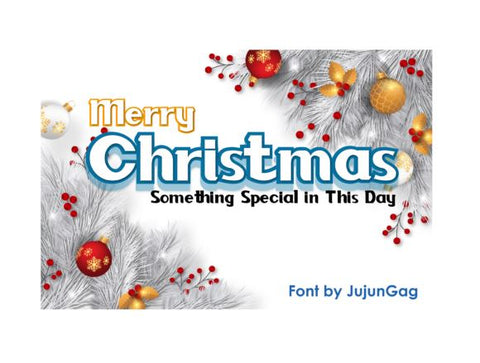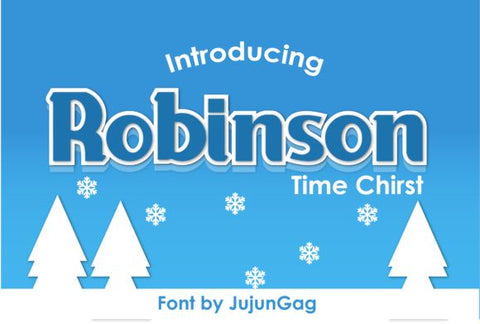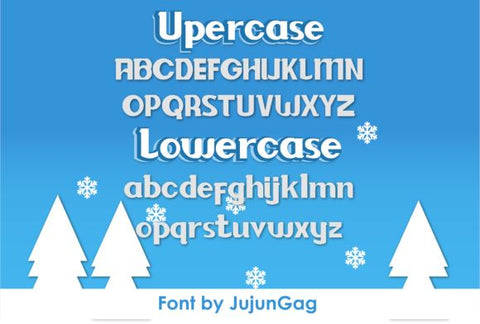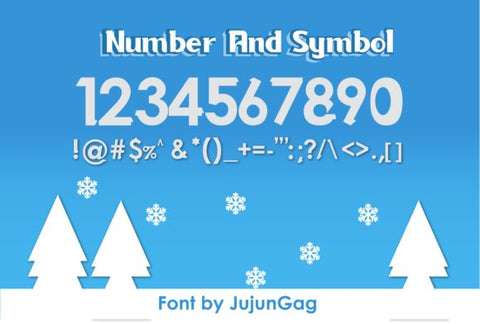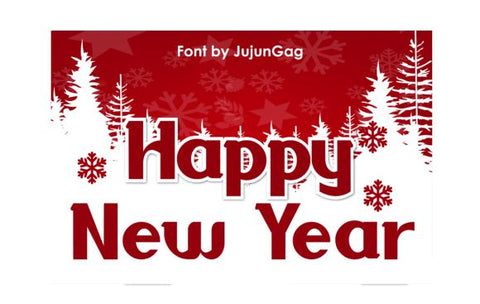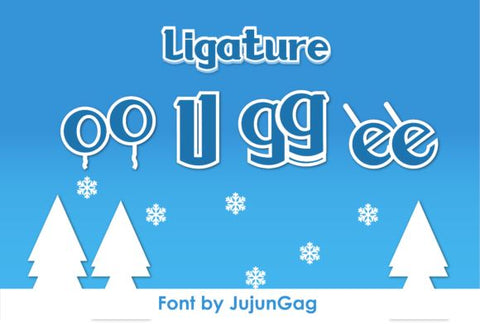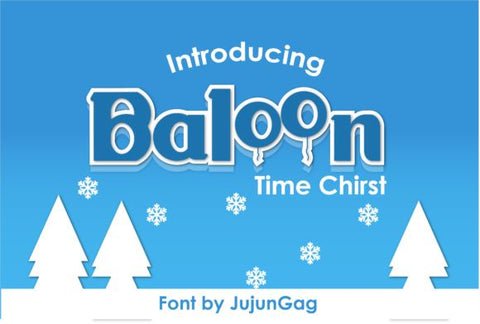
Baloon Display Font
Baloon Display Font – Baloon Display Font is a design font with a natural brush style that can enhance the quality of your designs.
Baloon Display Font– This Font is perfect for designs, logos, social media, brands, advertisements, product designs, handwritten quotes, product packaging, headers, posters, merchandise, and other designs.